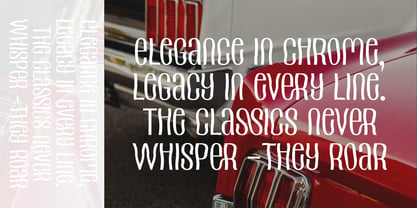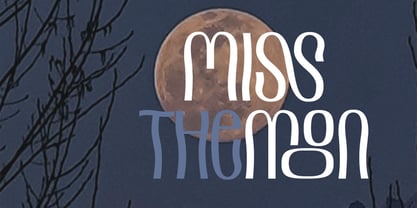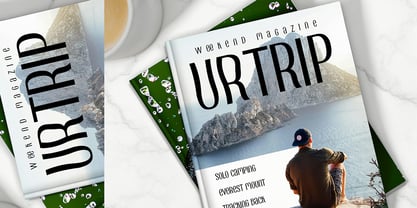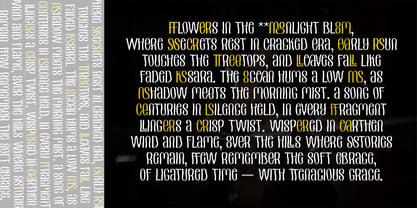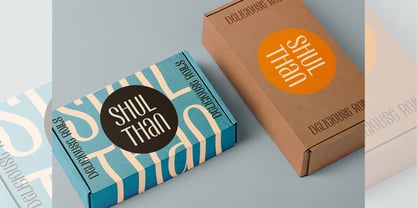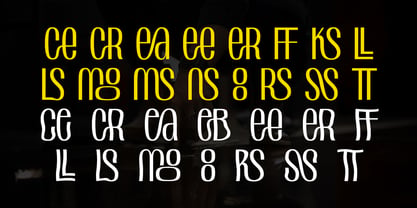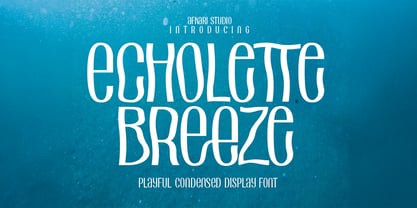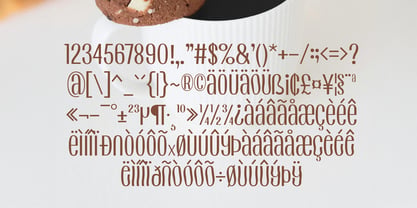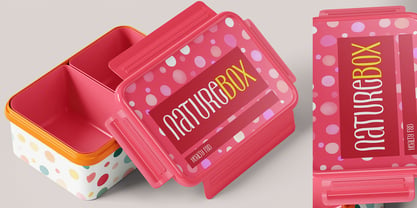
Echolette
by Afkari Studio
The Echolette Font Family was designed by Musthafa Kamal Emje and published by Afkari Studio. Echolette contains 1 styles. More about this family
Echolette Breeze is a playful condensed display font designed to bring a sense of movement, cheerfulness, and modern charm into your designs. With its narrow proportions, soft curves, and lively character shapes, this font delivers a fresh and friendly voice while remaining clean and highly readable. Perfect for bold headlines and eye-catching titles, Echolette Breeze shines in projects that need energy without clutter. Its condensed structure allows you to fit more text into tight spaces—making it ideal for posters, social media graphics, packaging, children’s designs, and creative branding. Whether used for joyful messaging or expressive visual statements, Echolette Breeze adds personality, rhythm, and a breezy tone to any layout. Features; - Uppercase, Lowercase, Number, and Punctuation - Special Alternates and ligatures - Works on PC & Mac, Simple installations - Accessible in Adobe Illustrator, Adobe Photoshop, Adobe InDesign, and even work on Microsoft Word - PUA Encoded Characters – Fully accessible without additional design software. - Mültîlíñgúãl Sùppört Make A fun condensed display font with lively shapes and cheerful rhythm.
Designers: Musthafa Kamal Emje
Foundry: Afkari Studio